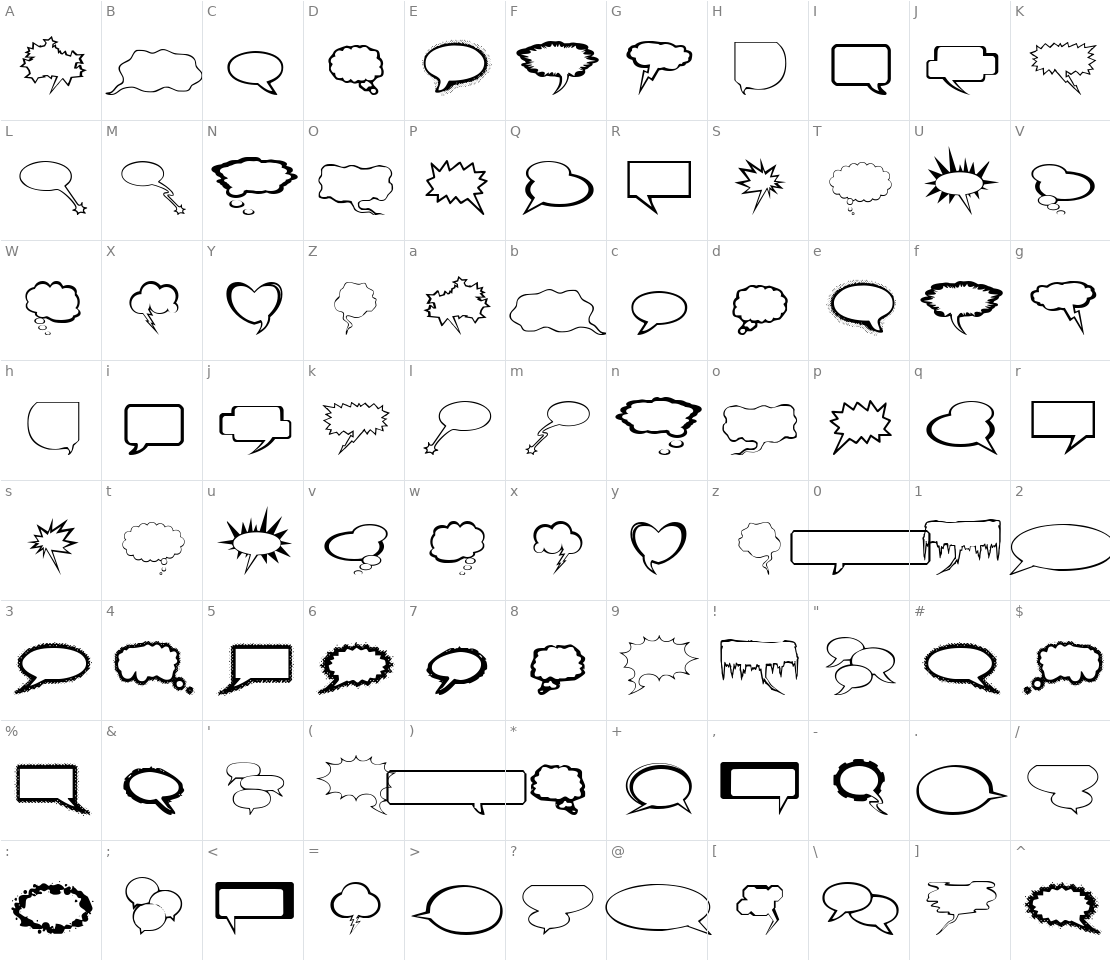
Talkies
Talkies is a dingbat font from Iconian Fonts made up entirely of speech bubbles, thought clouds, and dialogue shapes in various styles. It's a utility set for comic artists, cartoonists, and designers who need quick, clean bubble shapes without drawing them from scratch. The collection covers a solid range of styles from rounded to spiky to cloud-like, ready to be filled with lettering or layered behind text.